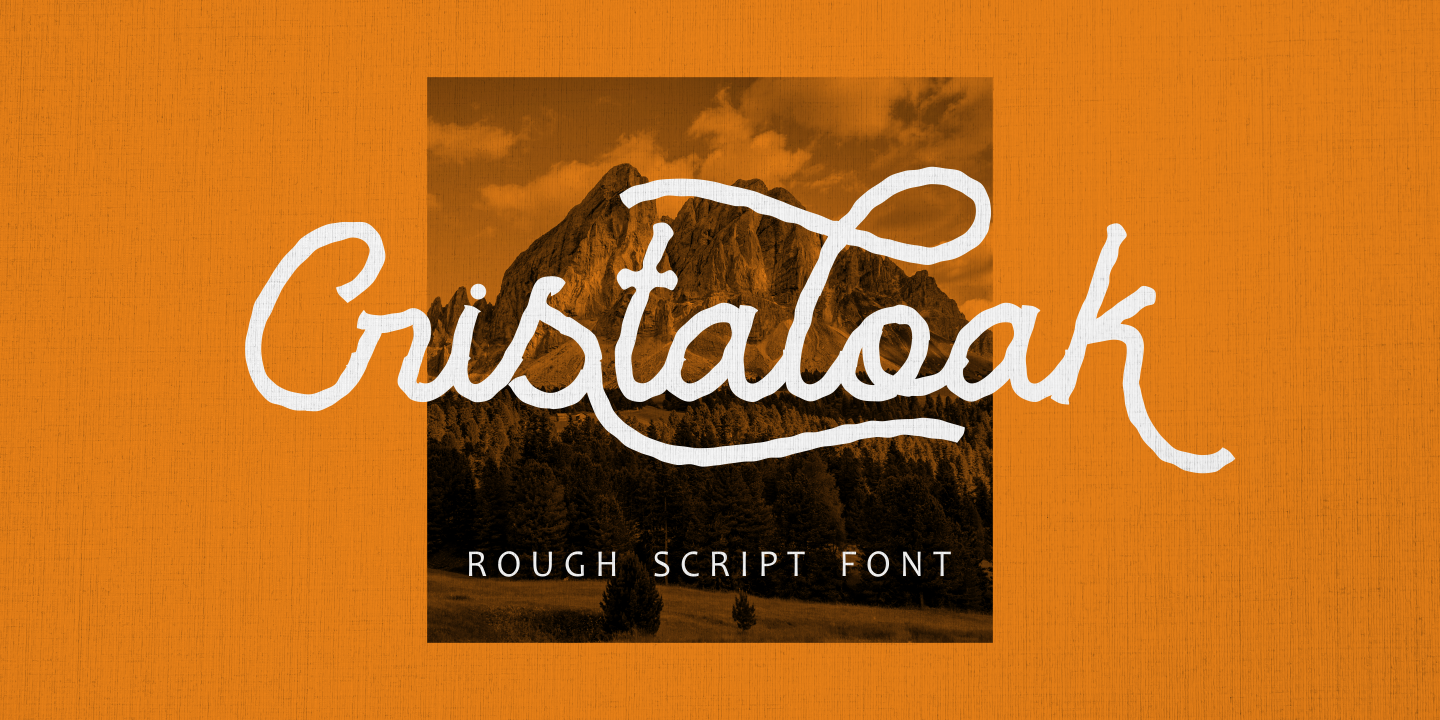
The Cristaloak Font is perfect for luxury crystal jewelry branding, premium oak furniture marketing, high-end interior design projects, elegant architectural presentations, sophisticated home decor advertising, artisanal woodworking designs, crystal healing center communications, and refined natural materials packaging. This versatile typeface excels in luxury furniture brands, crystal manufacturers, interior design studios, architectural firms, and any organization seeking to communicate natural elegance, crystalline clarity, and timeless oak strength in their visual communications.
What makes Cristaloak Font so exciting is its unique dual character that perfectly captures both the crystalline clarity of precious minerals and the natural strength of oak wood while maintaining exceptional sophistication and contemporary appeal. The font features refined letterforms with crystal-inspired clarity, oak-like durability, and distinctive details that create an immediate sense of natural luxury and enduring quality. Its dual-nature design philosophy makes it ideal for brands that want to communicate transparency, strength, and the kind of natural elegance that combines clarity with timeless durability.
The Cristaloak Font family includes comprehensive weight variations: Light, Regular, Medium, Semi Bold, Bold, Extra Bold, and Black versions, each available in upright and italic styles. Additionally, it offers crystalline alternates, oak-inspired decorative elements, and natural flourishes that enhance the font's luxurious appeal. The family includes extended character sets with multilingual support and specialized glyphs for luxury and natural materials design applications.
When you choose Cristaloak Font Free Download, you're investing in a typeface that embodies natural luxury and crystalline excellence while ensuring exceptional functionality across all modern applications. This font seamlessly combines crystal clarity with oak strength, making it perfect for both digital platforms and premium print applications. The carefully crafted letterforms maintain perfect legibility while the distinctive dual qualities create memorable brand experiences that resonate with audiences seeking authentic luxury and natural elegance.
Whether you're developing luxury natural materials brand identities, creating premium interior design marketing materials, designing architectural communications, or establishing a visual identity that celebrates crystalline clarity and oak strength, this font delivers outstanding sophistication and natural appeal. The Cristaloak Font transforms your content into elegant communications that reflect natural beauty and reinforce your brand's commitment to luxury excellence and the timeless appeal of precious natural materials.